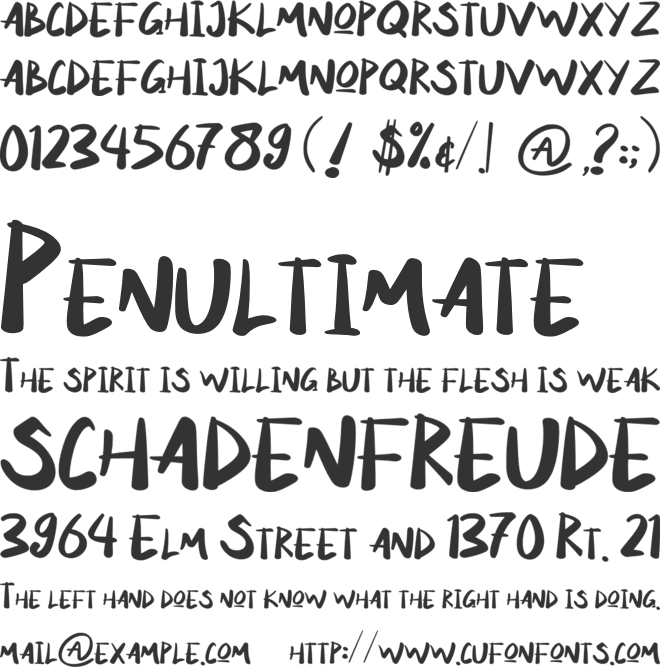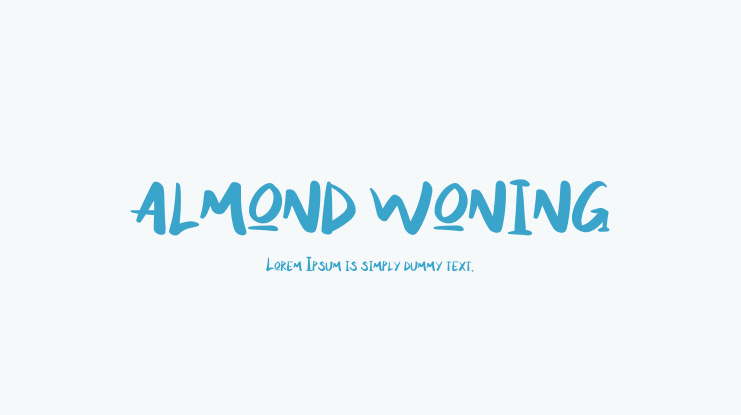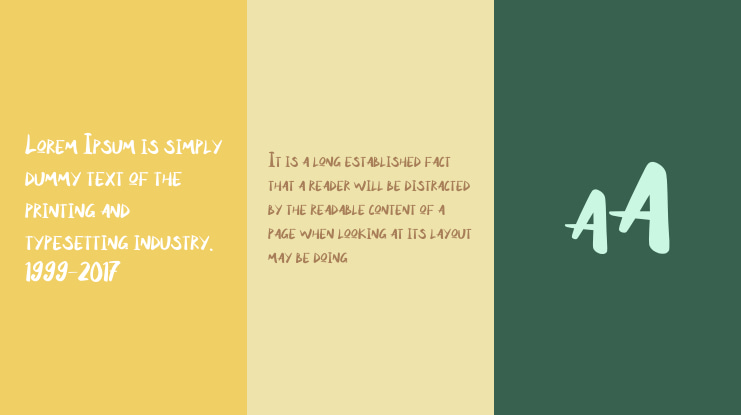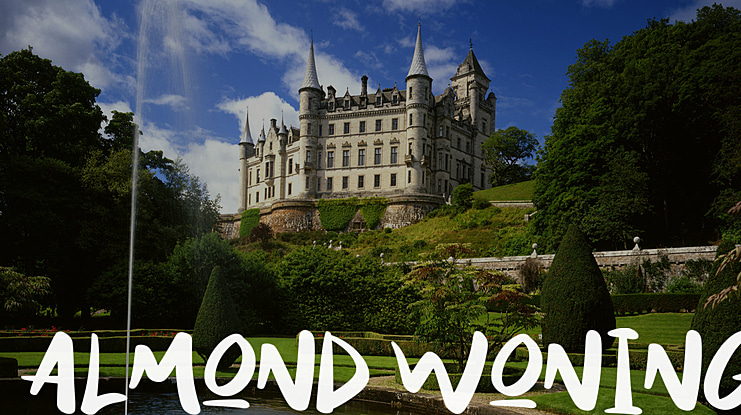
ALMOND WONING Font
JAVANICE STUDIO
This is a display font. Almond Woning is perfect for branding project, apparel, labels, magazines, books, greeting / wedding cards, packaging, fashion, make up, stationery, and any type of advertising purpose or just used to express words above the background.